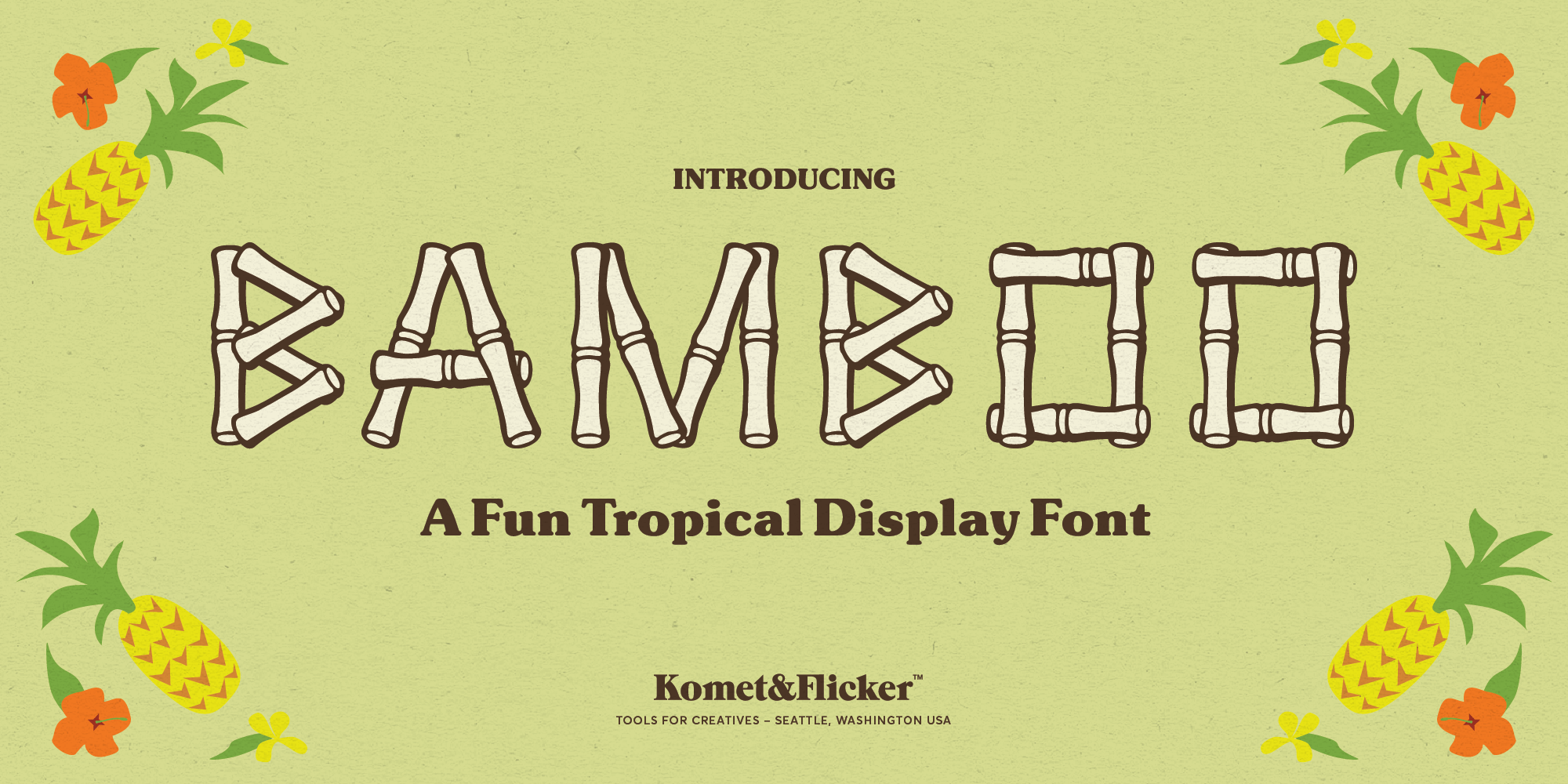
BAMBOO Font is ideal for various design applications including sustainable product packaging, eco-friendly brand identities, Asian-inspired restaurant menus, zen meditation center materials, organic wellness company branding, tropical resort signage, natural health product marketing, and environmental conservation campaigns that require organic sophistication and natural authenticity.
What makes BAMBOO Font truly exciting is its authentic embodiment of natural growth and sustainable beauty that captures the essence of bamboo's remarkable properties as one of nature's most versatile and environmentally sustainable materials, representing strength, flexibility, and rapid renewable growth. This organic typeface features tall, graceful letterforms with subtle segmented details that evoke images of bamboo groves swaying in gentle breezes, traditional Asian gardens, and the harmonious balance between strength and flexibility that makes bamboo both architecturally sound and environmentally responsible. The font's natural character reflects the sustainability and resilience of bamboo cultivation, making it perfect for brands that want to communicate environmental responsibility, natural wellness, and the timeless wisdom of working in harmony with nature. Its organic appearance creates immediate associations with sustainability and natural living.
The BAMBOO Font family includes multiple weights and organic variations designed to enhance natural communication. The collection features Light, Regular, Medium, and Bold weights, each maintaining the font's characteristic bamboo appeal while offering different levels of natural presence. The family also includes alternate characters with varying organic textures, natural elements that simulate bamboo segments, and stylistic sets that create harmonious text arrangements reflecting the growth patterns of bamboo forests. Additional features include contextual alternates and ecological ligatures that enhance the authentic, sustainable appearance.
Environmental and wellness professionals consistently choose BAMBOO Font Free Download for projects requiring authentic natural character and sustainability credibility. The font's organic nature makes it particularly effective for eco-friendly brands, wellness companies, and sustainable businesses targeting audiences who appreciate environmental consciousness and natural living principles. Its excellent readability across various applications ensures effective communication while maintaining the distinctive natural character that conveys environmental authority and organic sophistication.
The advanced OpenType capabilities of BAMBOO Font include contextual alternates, stylistic sets, and comprehensive character support that accommodates environmental terminology and wellness expressions while preserving the font's authentic organic character. The technical precision ensures consistent natural appearance across different sustainability applications and wellness platforms.
For creative professionals seeking a typeface that embodies genuine environmental heritage and natural sophistication, BAMBOO Font offers unparalleled organic appeal and sustainable elegance. Its ability to convey environmental wisdom while maintaining functional communication makes it invaluable for eco-friendly brands, wellness organizations, and sustainable lifestyle companies. The font's distinctive natural character ensures memorable environmental impact across all applications, creating powerful visual identity systems that celebrate the remarkable sustainability of bamboo and the growing movement toward environmentally conscious design and natural living principles that honor our planet's resources.